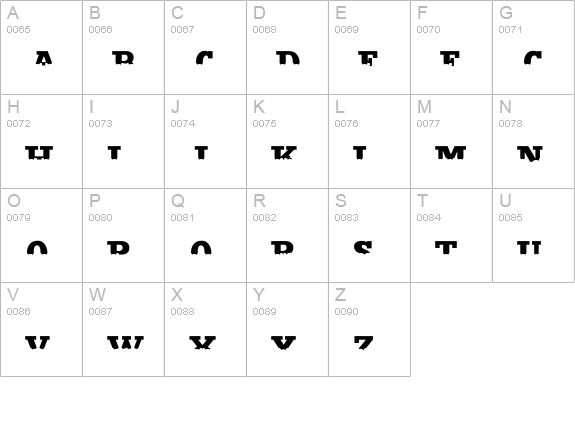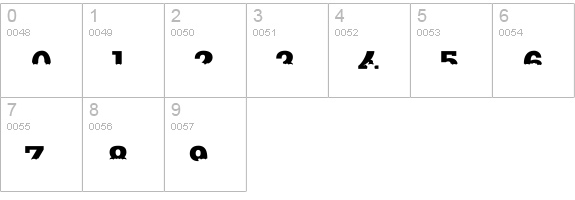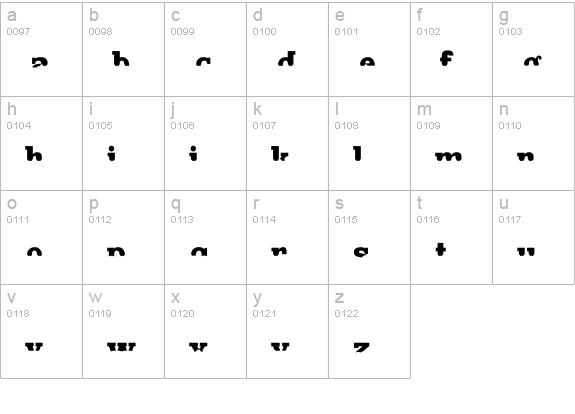
Main Strike Half Fill is a striking and bold font that commands attention with its unique half-filled design. This eye-catching typeface is perfect for headlines, posters, and branding projects that require a strong and impactful visual presence. Featuring a combination of solid and half-filled letterforms, Main Strike Half Fill exudes a sense of dynamism and energy. Each character is meticulously crafted with precision and care, resulting in a font that is both visually stunning and highly readable. The versatility of Main Strike Half Fill allows it to be used in a variety of design contexts. Whether you're creating a bold advertising campaign or designing a sleek and modern website, this font will add a touch of sophistication and style to any project. But what sets Main Strike Half Fill apart from other fonts is its availability for free download at FontsMarket.com. Yes, you read that right - this incredible typeface can be yours without spending a dime. FontsMarket.com is known for its high-quality, free font offerings, and Main Strike Half Fill is no exception. Downloading Main Strike Half Fill is a breeze. Simply visit FontsMarket.com, find the font in the extensive collection, and click the download button. Within seconds, you'll have access to this fantastic font, ready to be incorporated into your creative endeavors. So why wait? Enhance your designs and captivate your audience with Main Strike Half Fill. Download this free font today and embark on a design journey that is both visually stunning and effortlessly impactful.